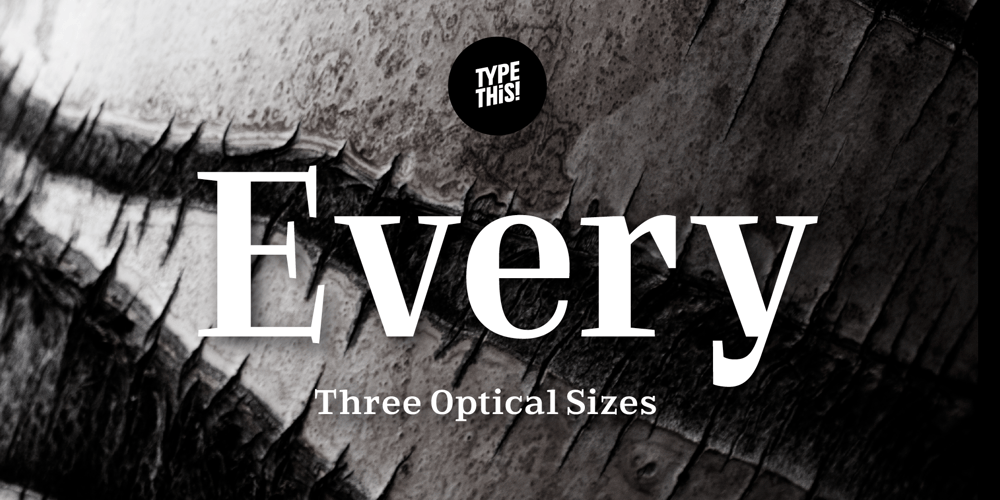
Every
Every font
Every Font Family was designed by Anita Jürgeleit and published by TypeThis!Studio. Every contains 24 styles and family package options. EVERY is designed to be the most valuable typography equipment in your repertoire!Rich in visions, a wide range of features have been created to master all your typographic challenges par excellence: Italics, small caps, old-style figures, ligatures & arrows are just some of the many possibilities that EVERY offers.28 Styles in three optical sizes gives you the opportunity to create fascinating design with the scent of iconic elegance.Be exceptional – EVERY day.www.typethis.studio